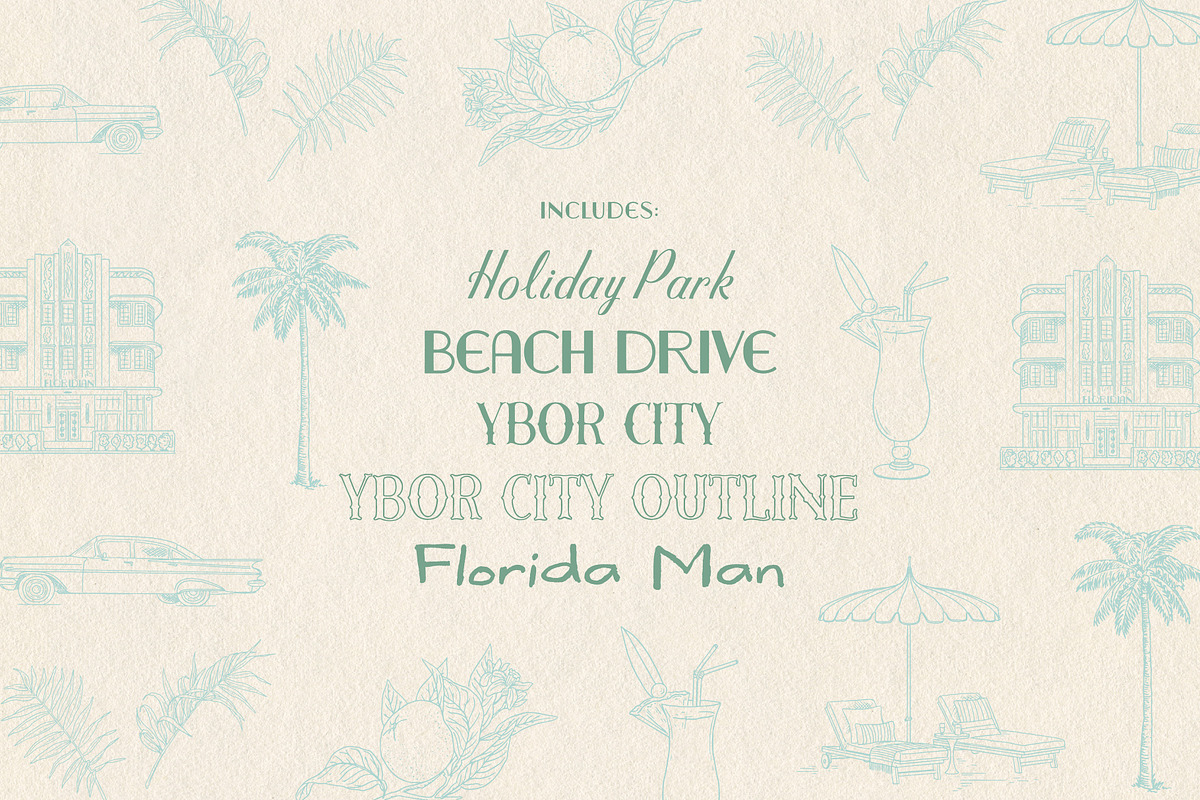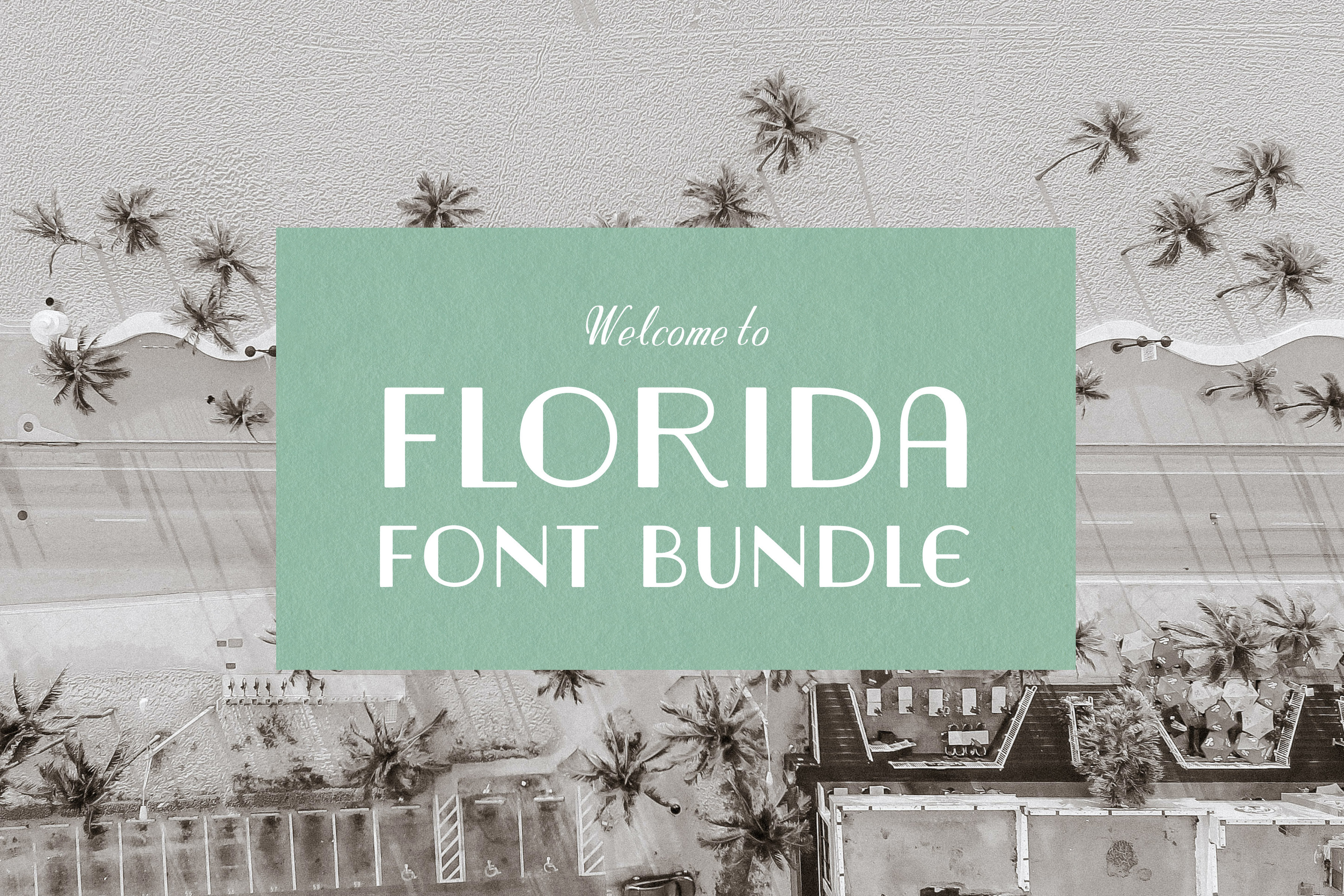
FLORIDA FONT BUNDLE: beach town vibe
This bundle includes four of our original, hand-lettered fonts: Holiday Park, Beach Drive, Florida Man, and Ybor City.
- Standard Latin Characters + Numericals - lettered by hand, by Anna Núñez & Jesús Núñez
- Punctuation, Mathematical Symbols, and Spanish accent marks - lettered by hand, by Anna Núñez & Jesús Núñez
- 5 weights: Holiday Park (Regular), Beach Drive (Regular), Ybor City (Regular, Outline), Florida Man (Regular)